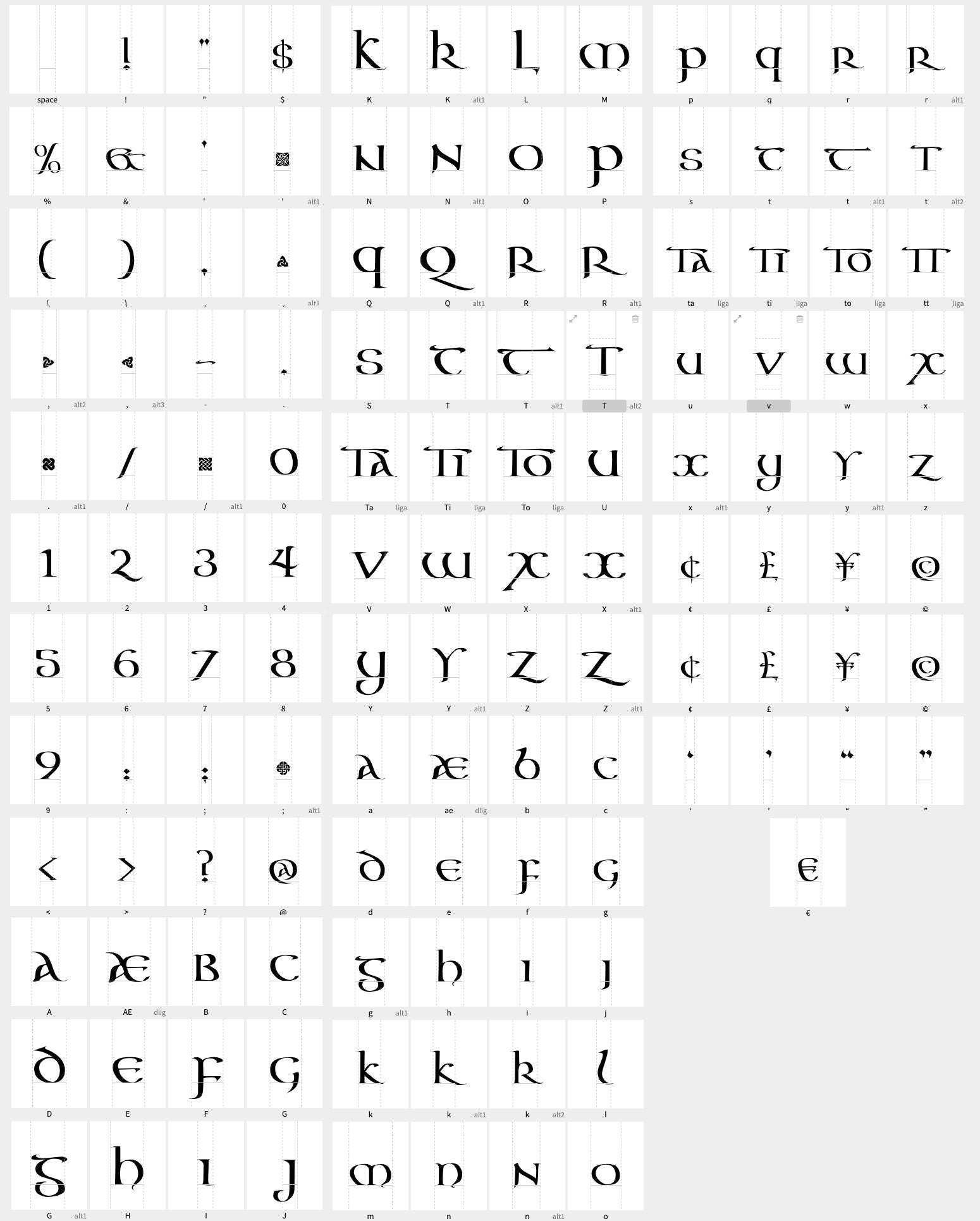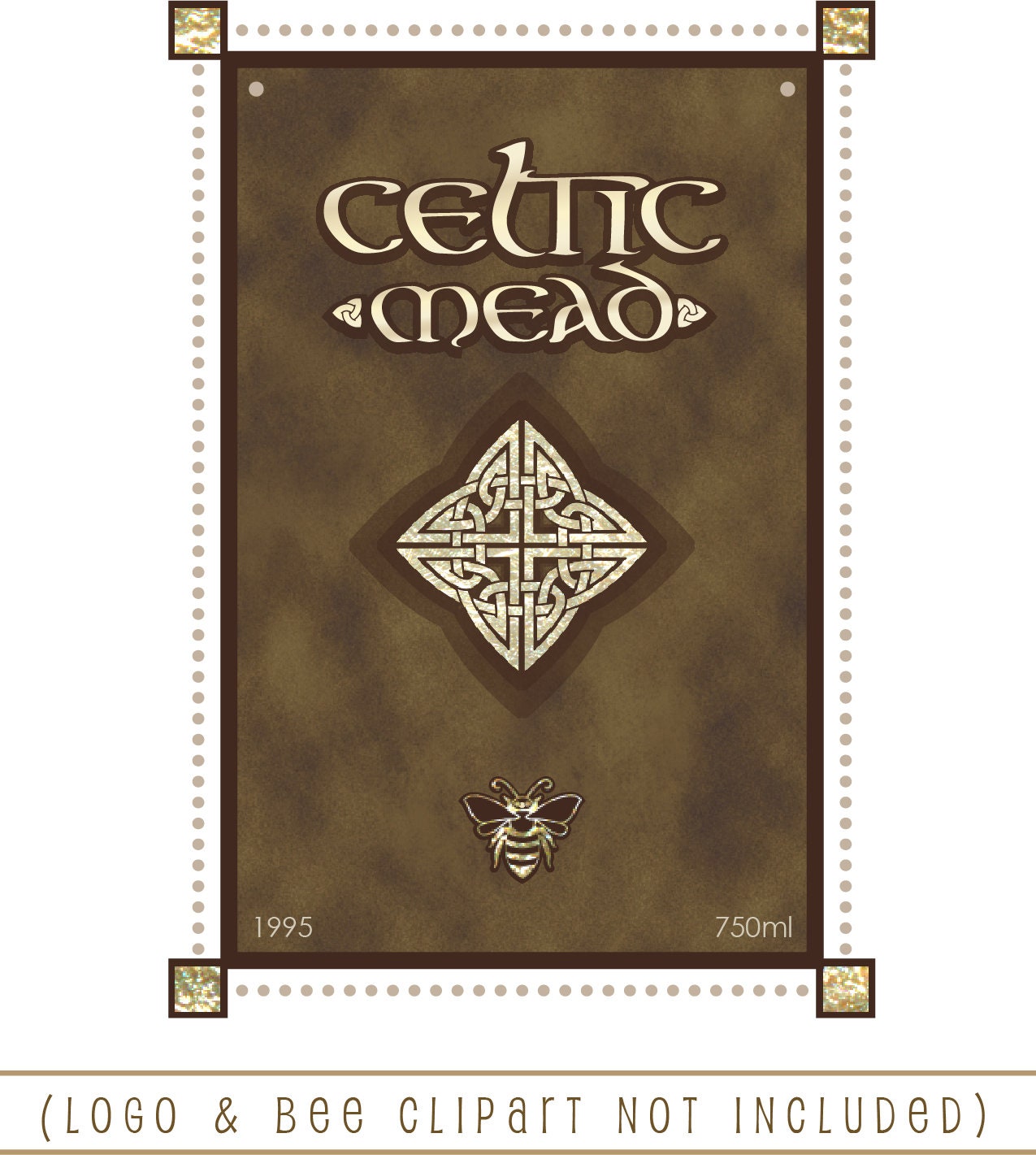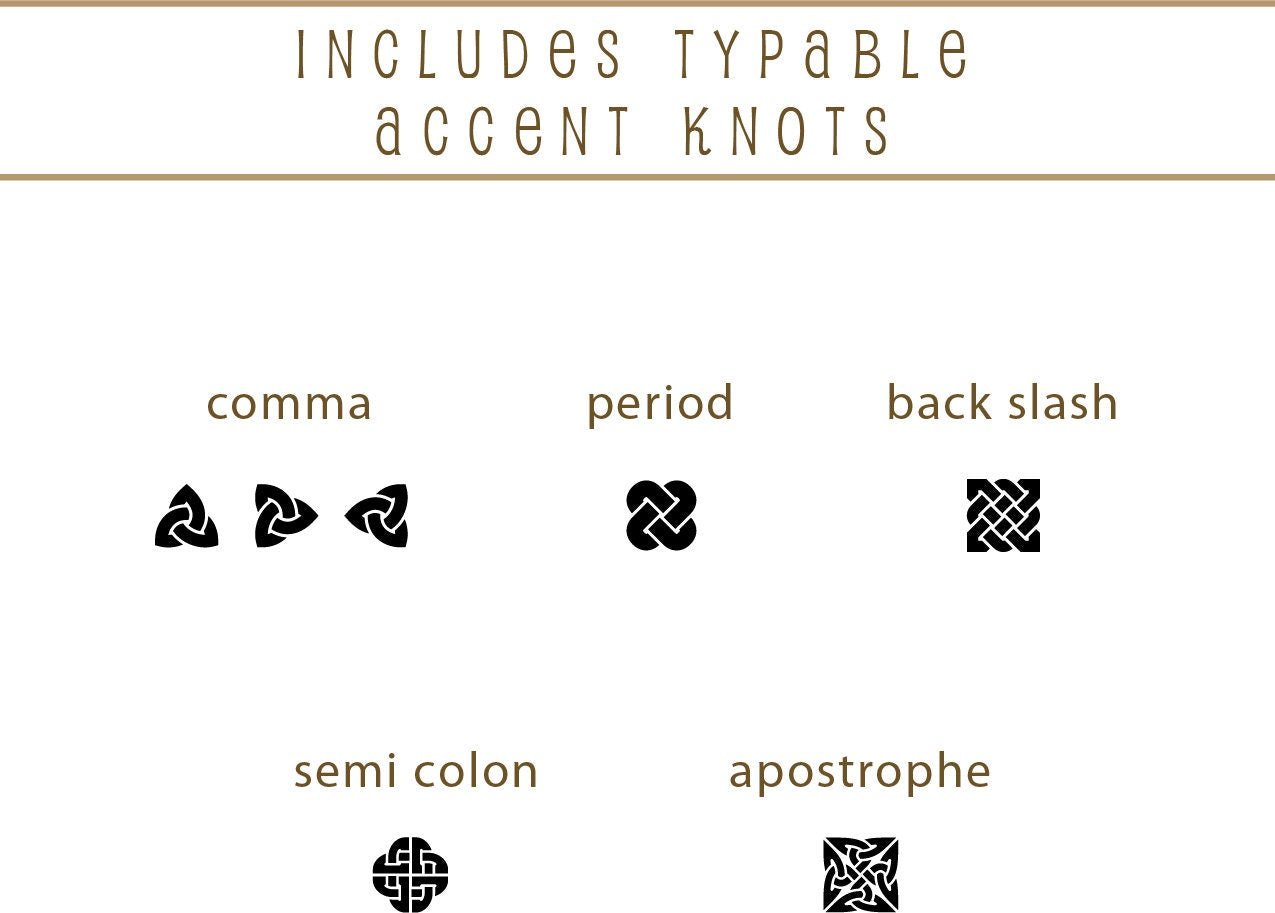
☘️ A great font based on Celtic manuscripts like the Book of Kells or Lindisfarne Gospels, with modernized variants provided for readability. Includes alternate and/or extended letters for A, K, R, T, N and Z, as well as custom ligatures, numbers and common punctuation. I've also included some little Celtic knot dingbats for you to use in your projects - just type to add!
Perfect for creating personal stationery, monograms, invitations and using in craft projects!